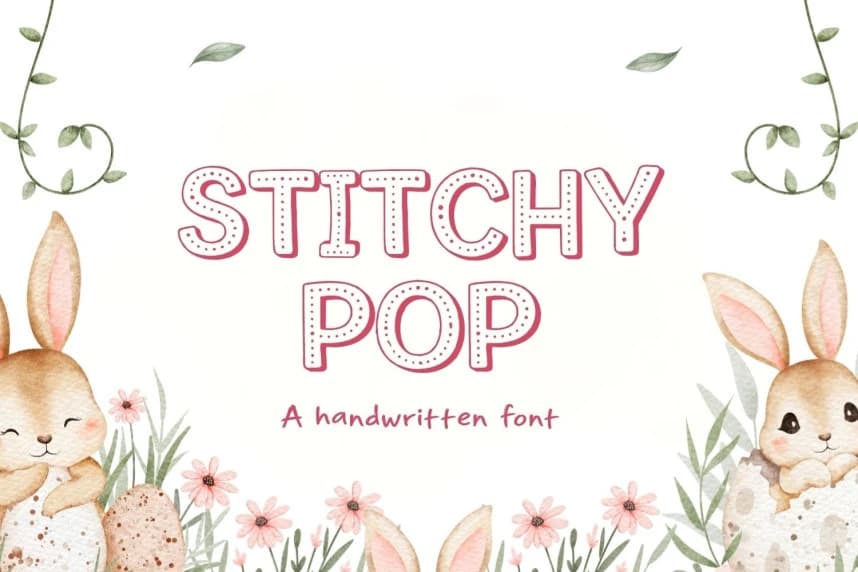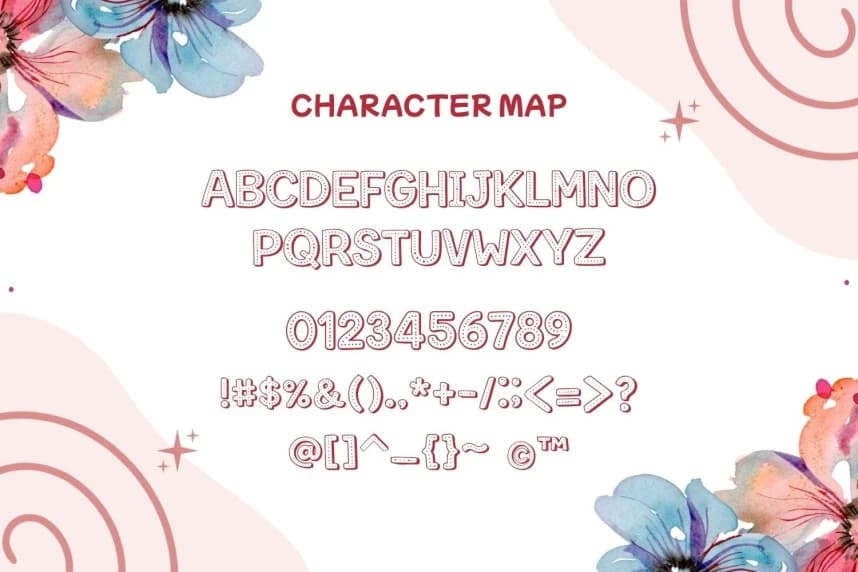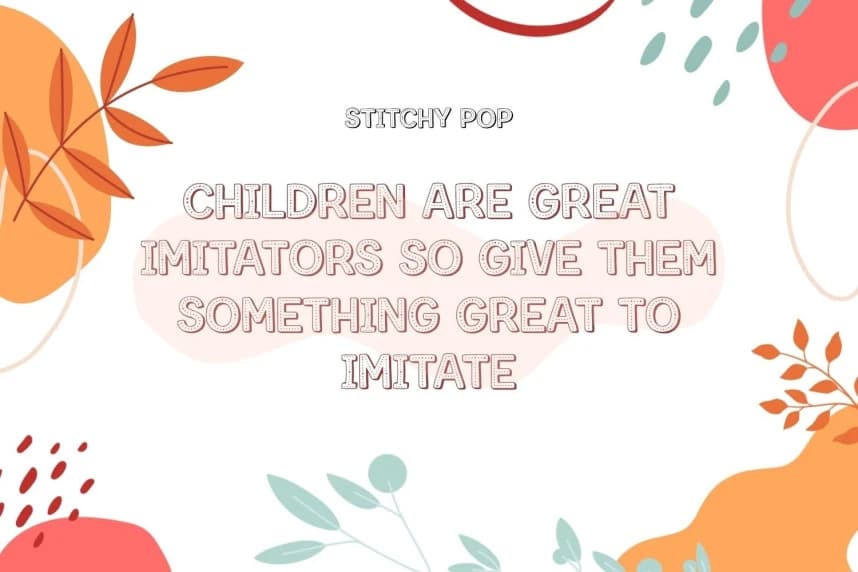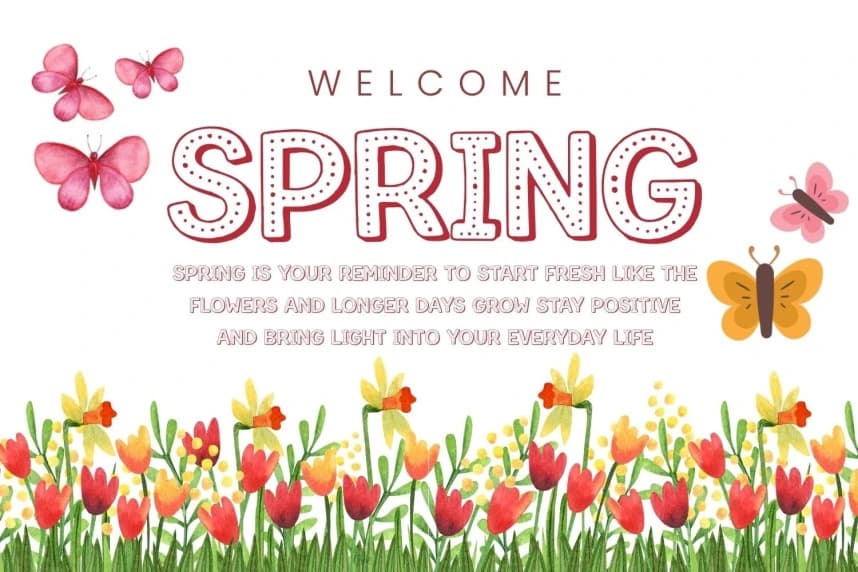
Stitchy Pop Font
Stitchy Pop Font that looks soft, fun, and easy to like. The letters feel friendly and a little playful, so every word looks nice and welcoming. It has a gentle style that makes reading feel calm and happy.